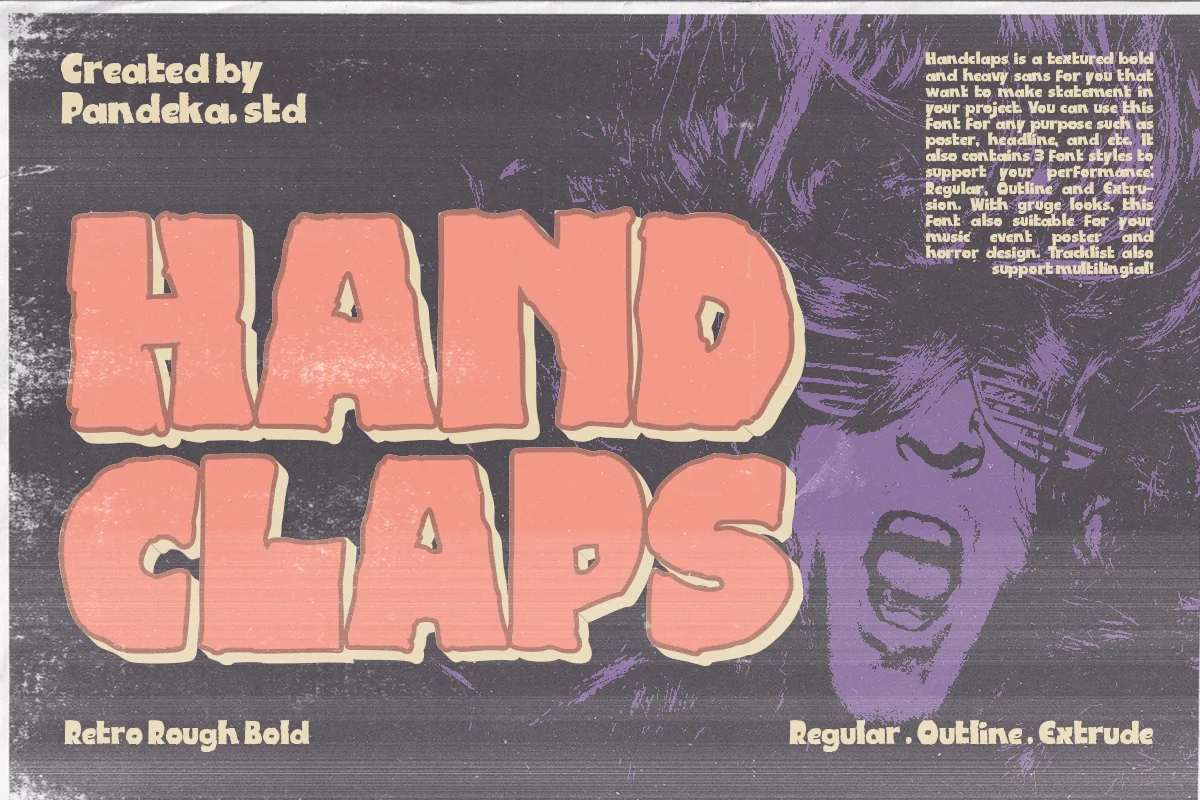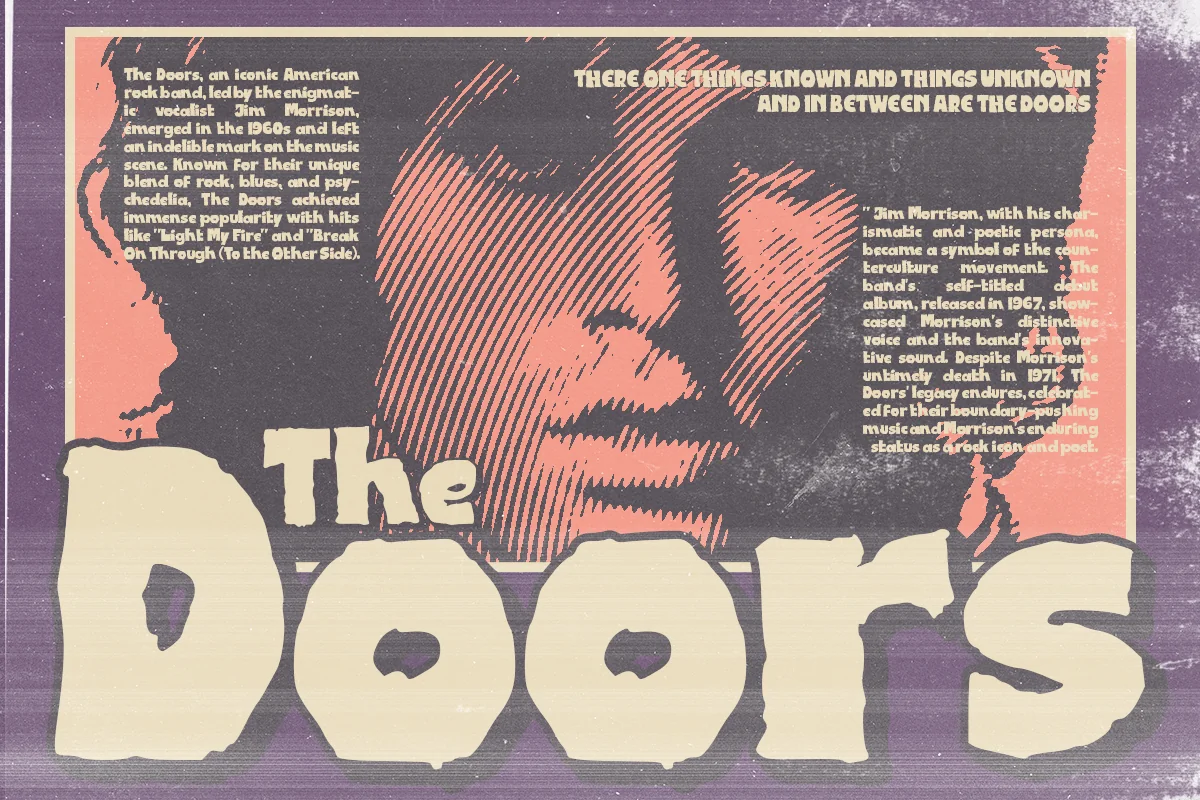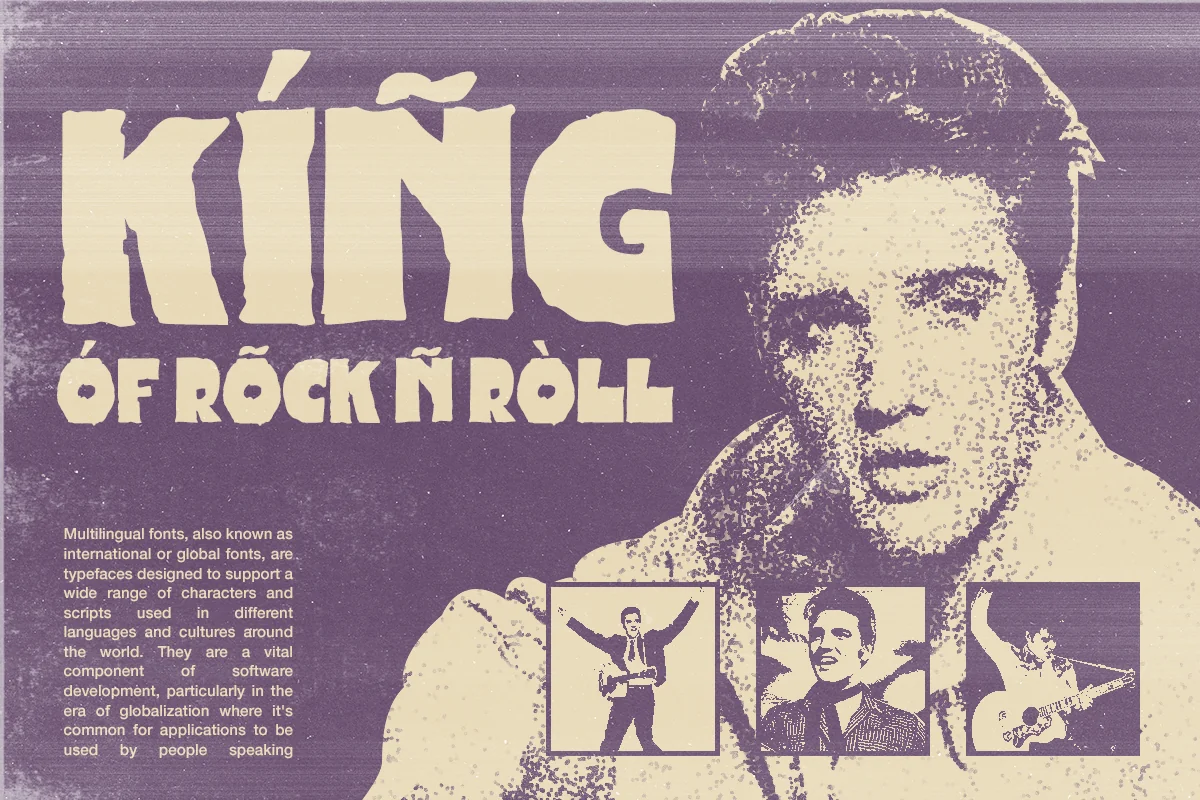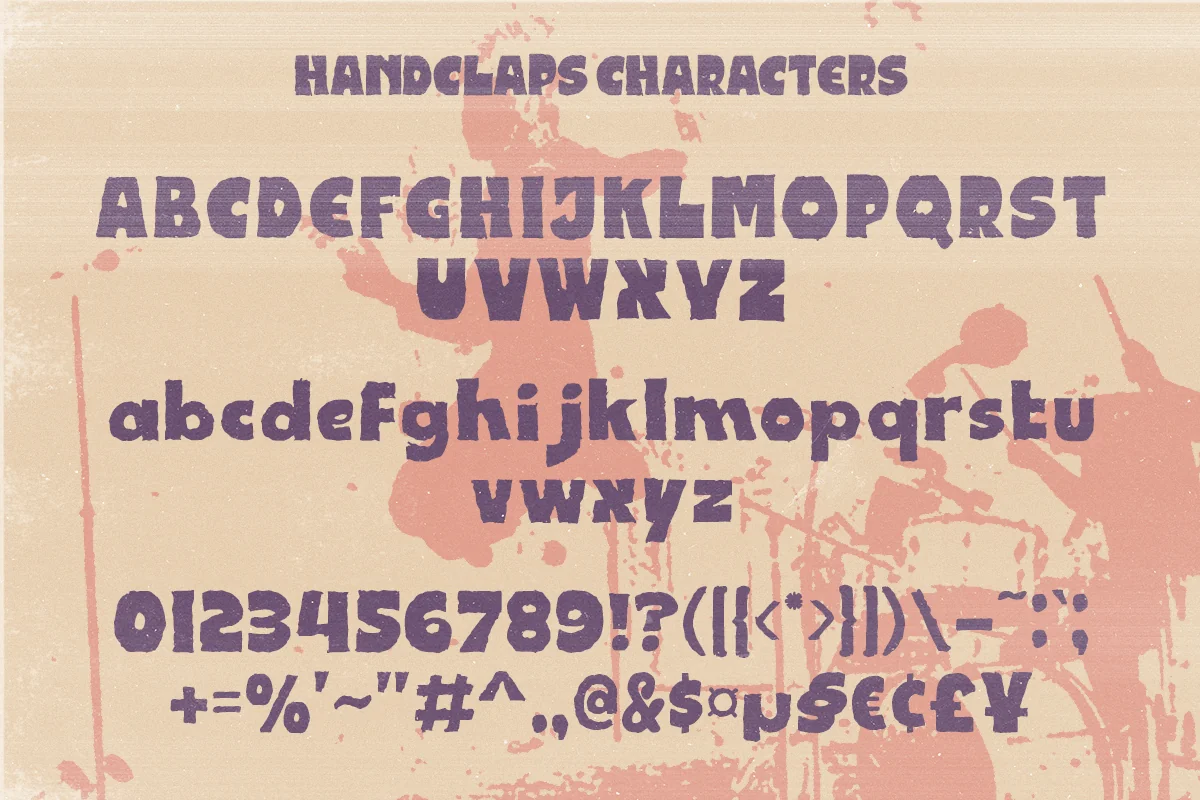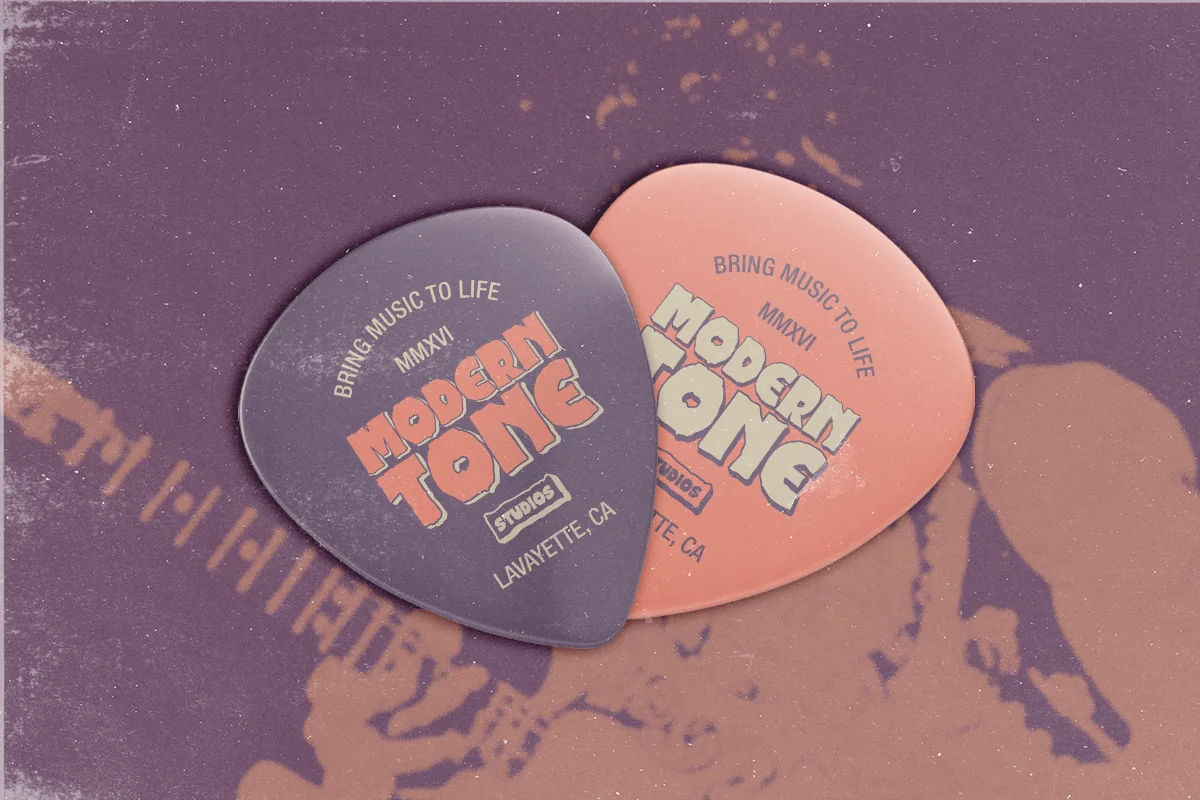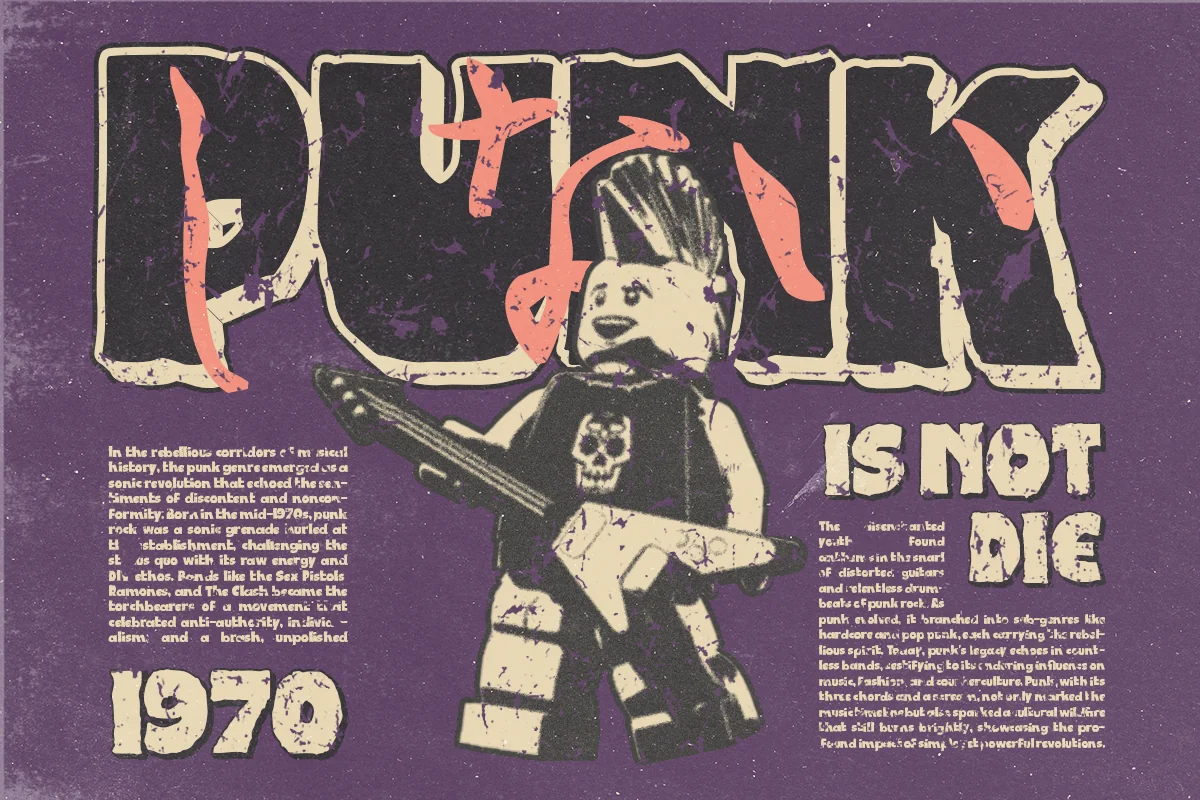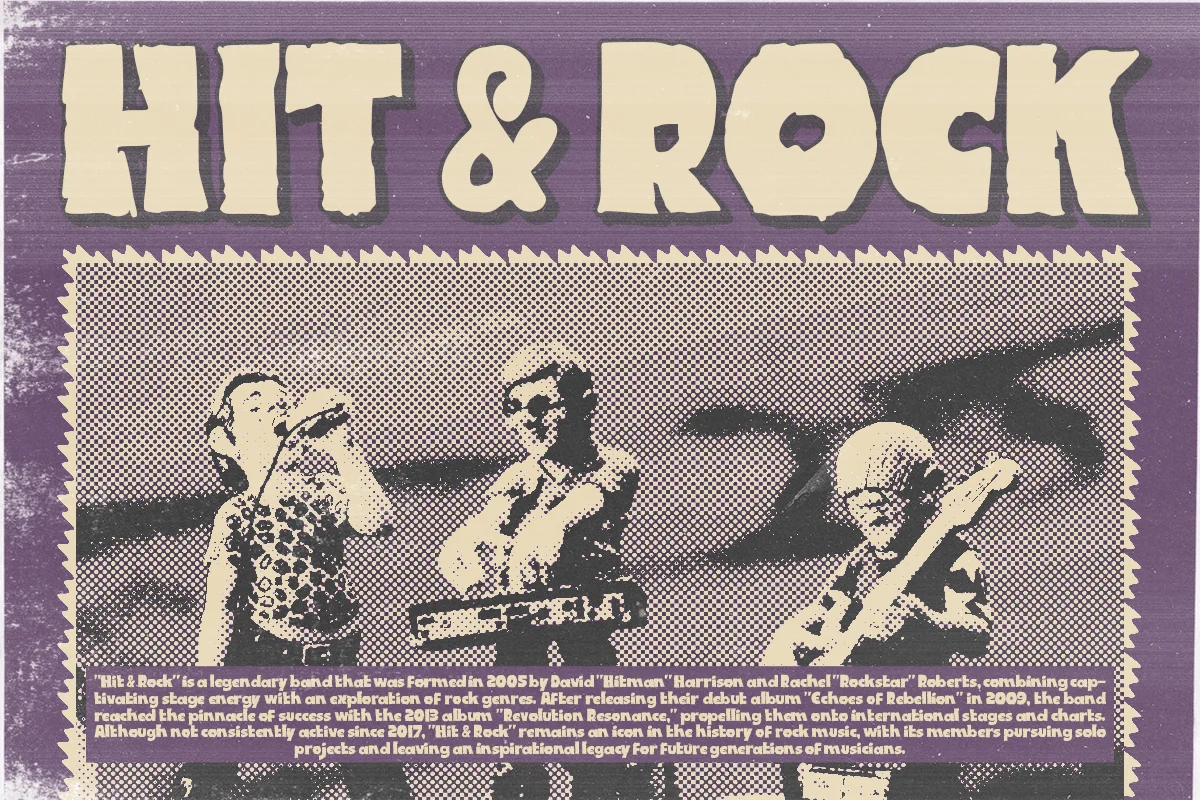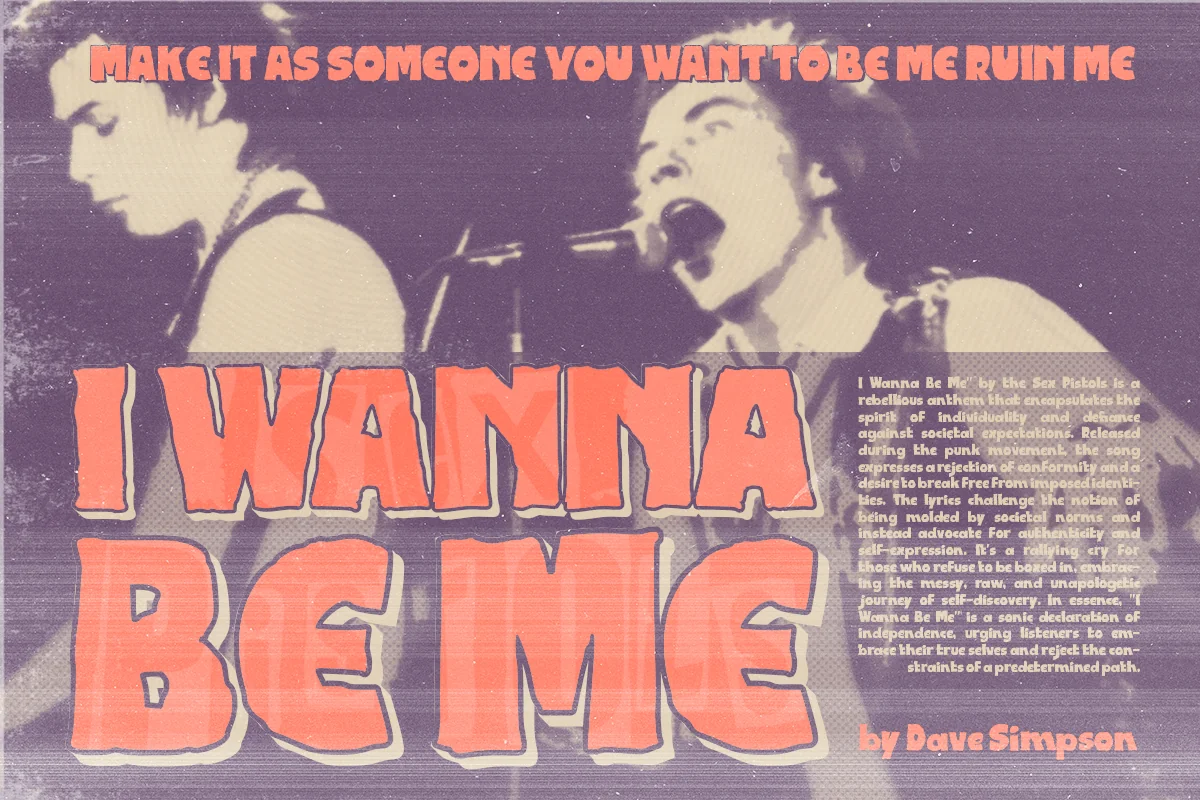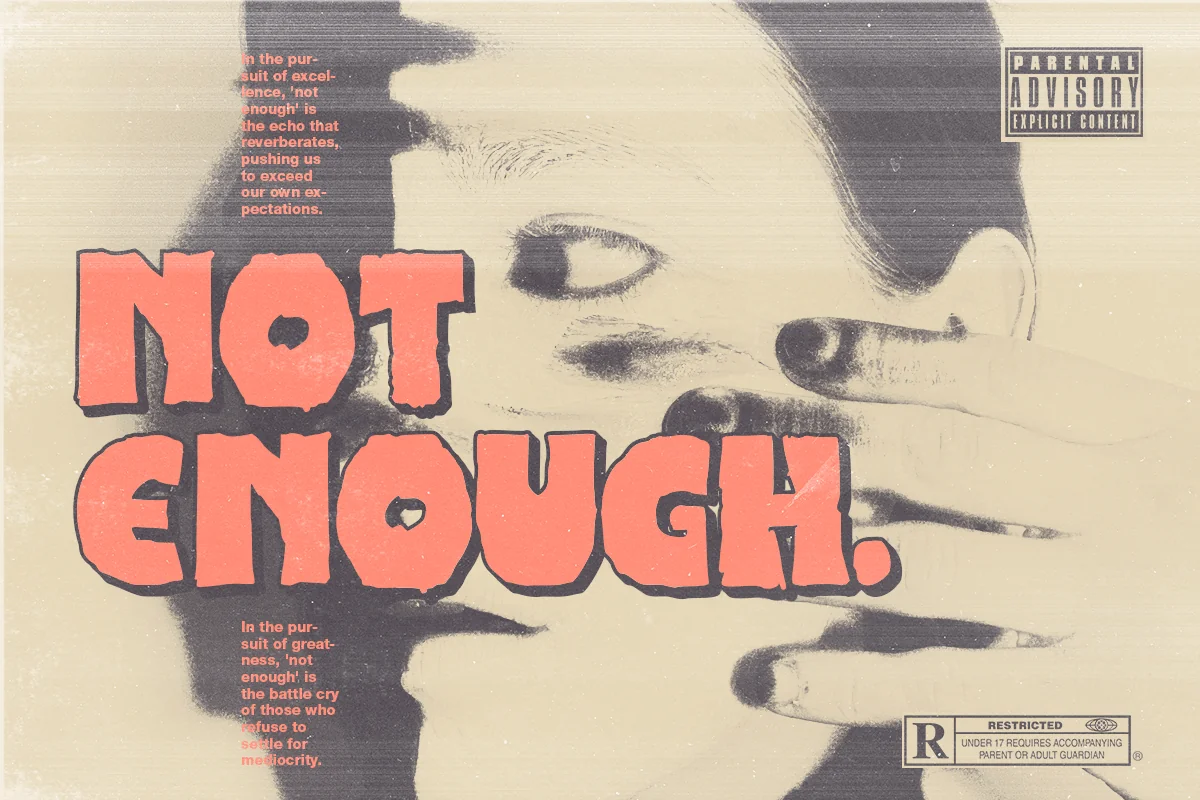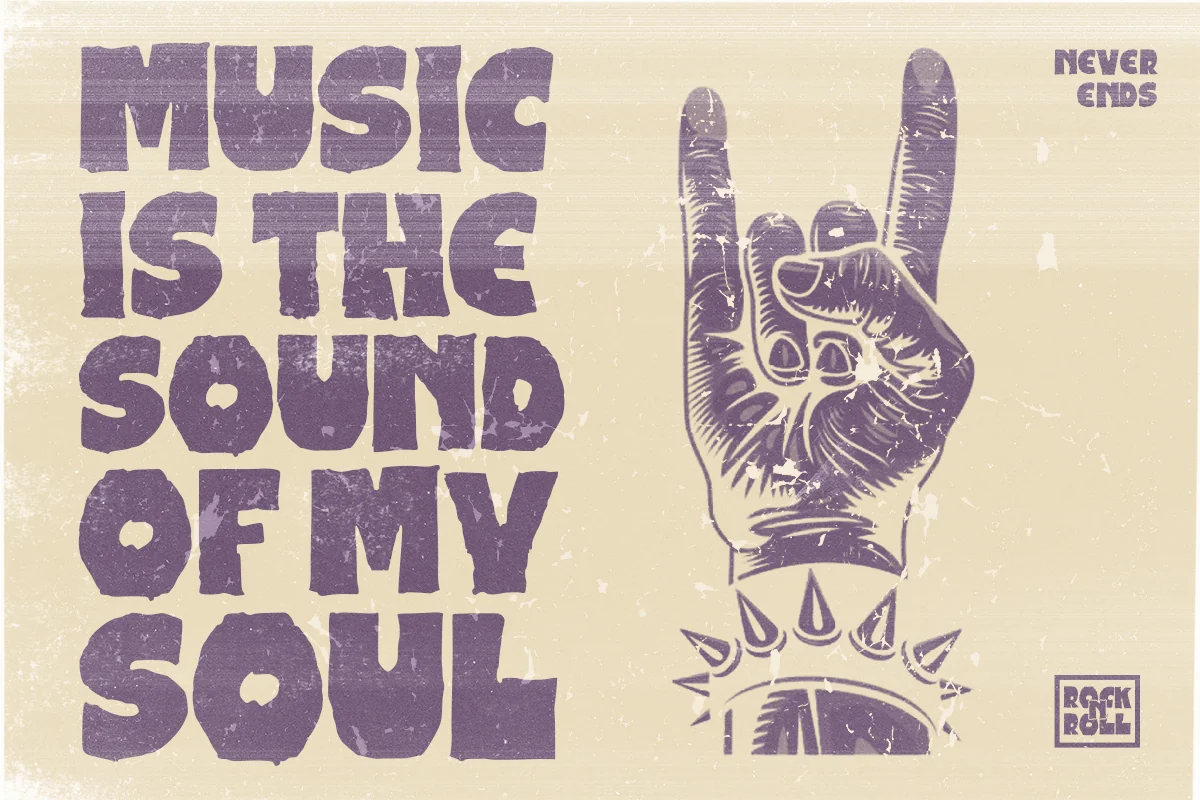
Handclaps – Sign Painting Display Logo Font
Handclaps is a textured bold and heavy sans for you that want to make statement in your project. You can use this font for any purpose such as poster, headline, and etc. With gritty and rough looks, this font also suitable for your music and album design. Handclaps also support multi language!
Handclaps comes in three versions – Regular, Outline, and Extrude version. With three different style fonts, you can easily create eye-catching designs without any extra effort
- Regular, Outline and Extrude family